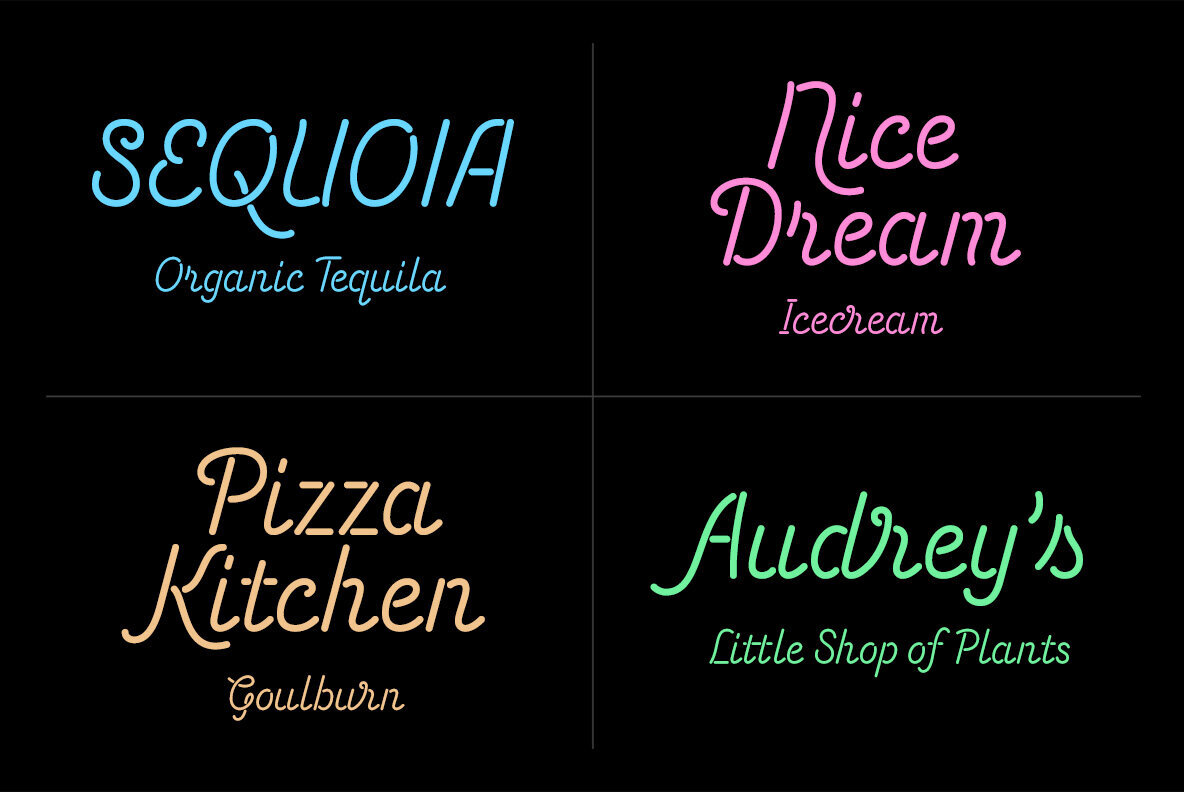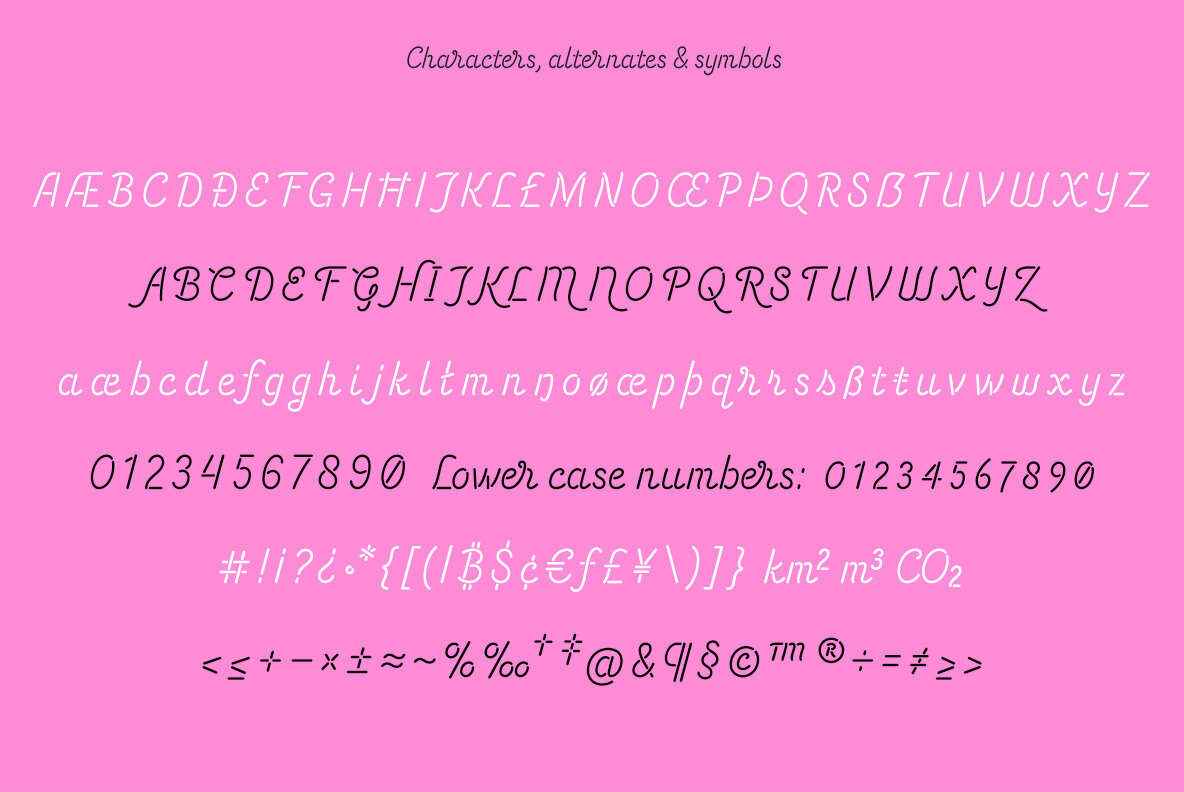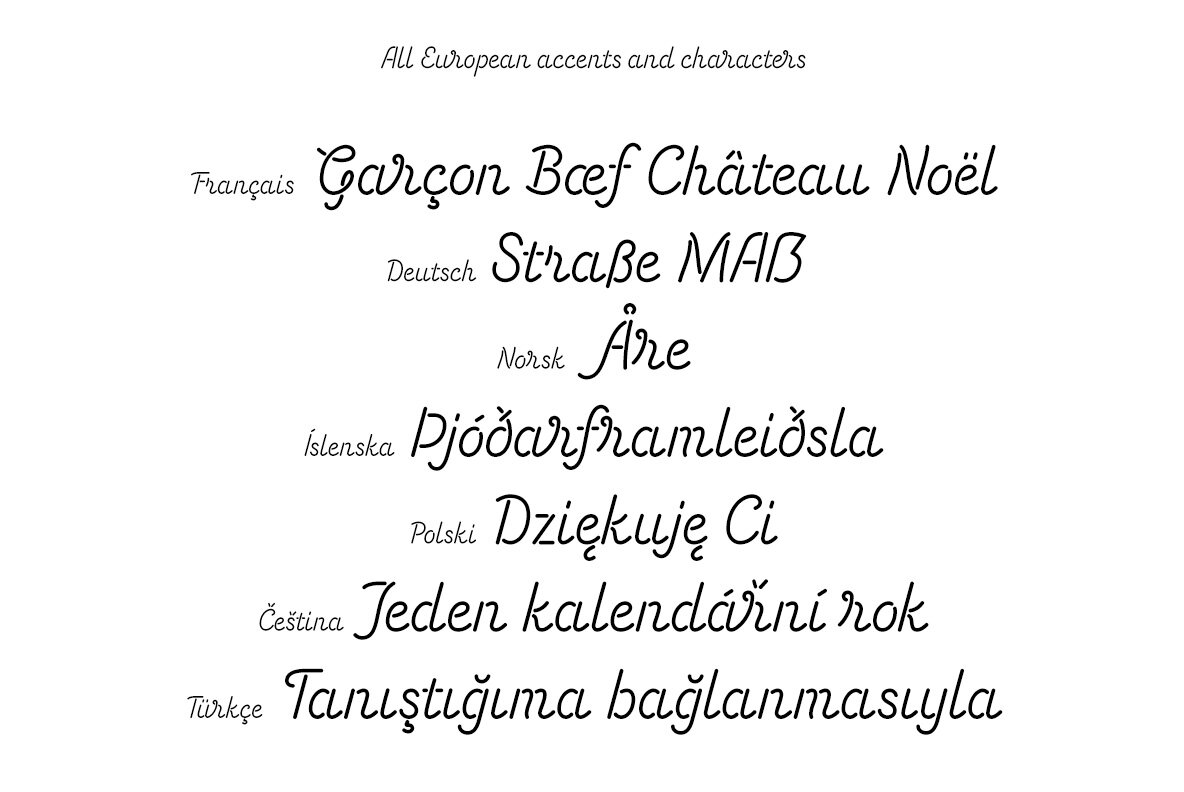
Energetic Script Font
The Energetic Script collection by Sjoerd Kulsdom offers a lively typeface with its Hairline, Light, and Regular weights. This font is suited for various design purposes, blending a modern aesthetic with classical text elements. It harmonizes well in projects that demand an innovative yet approachable script style.Energetic Script: A Versatile Choice for Dynamic Design